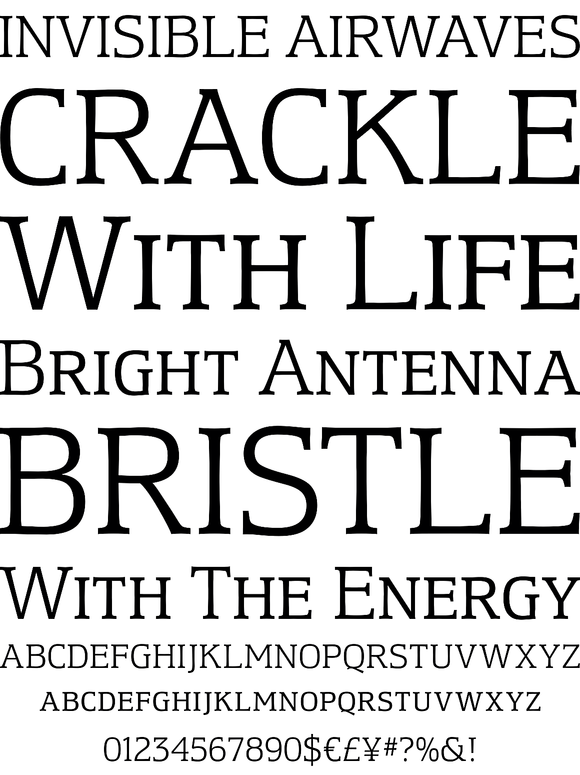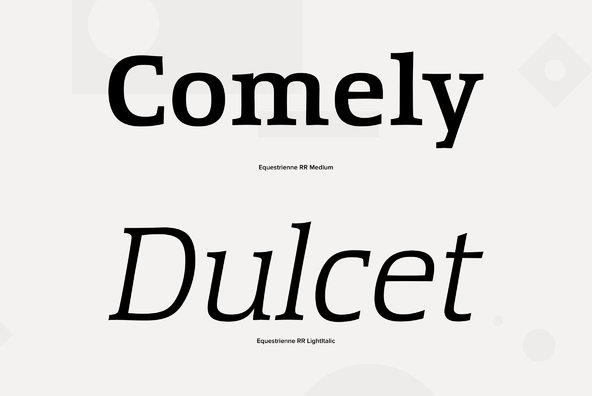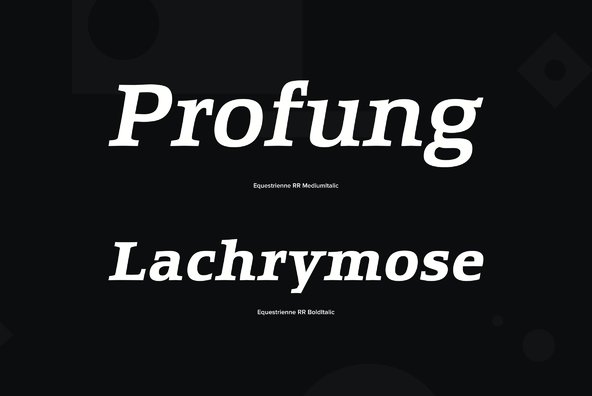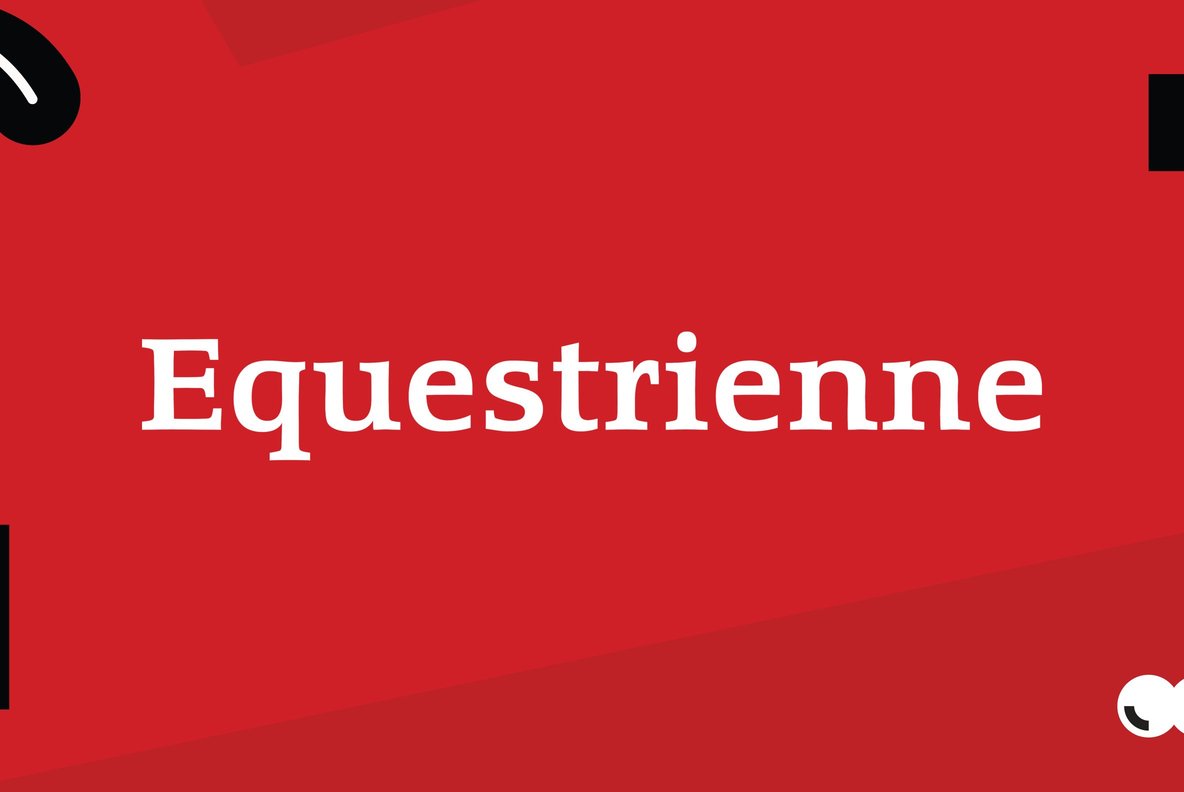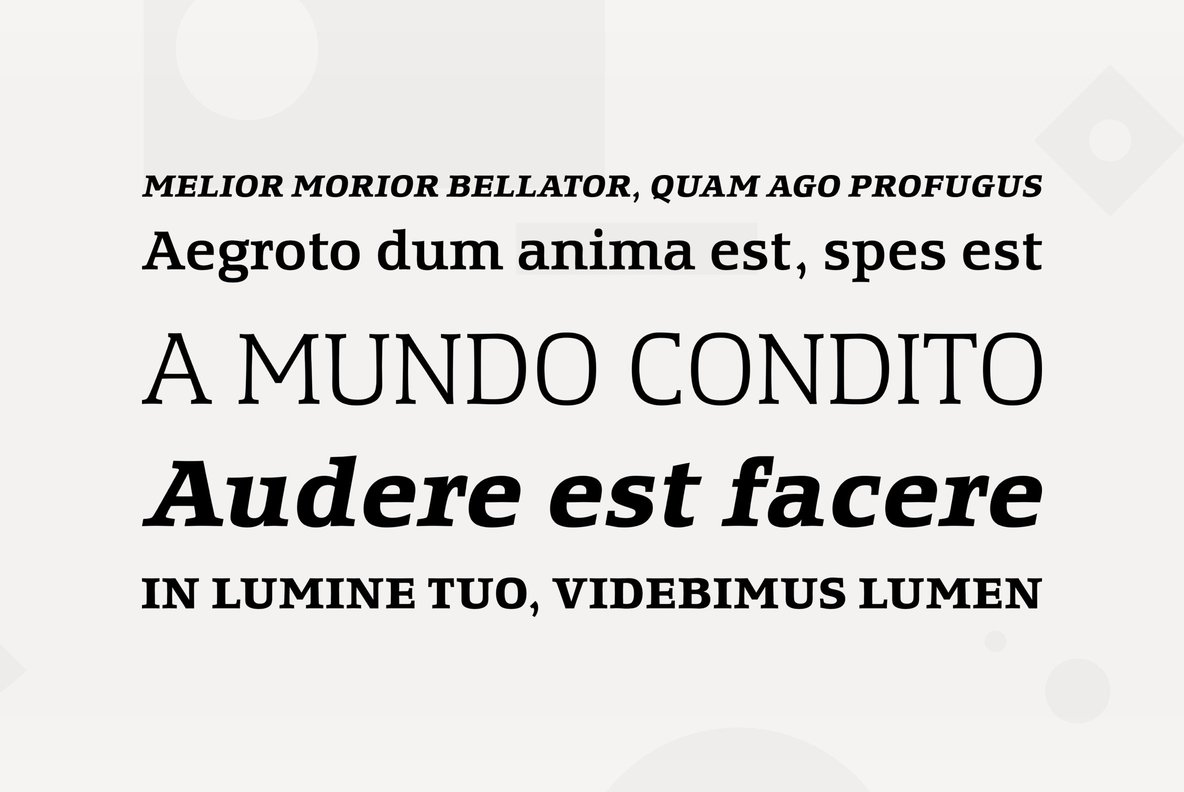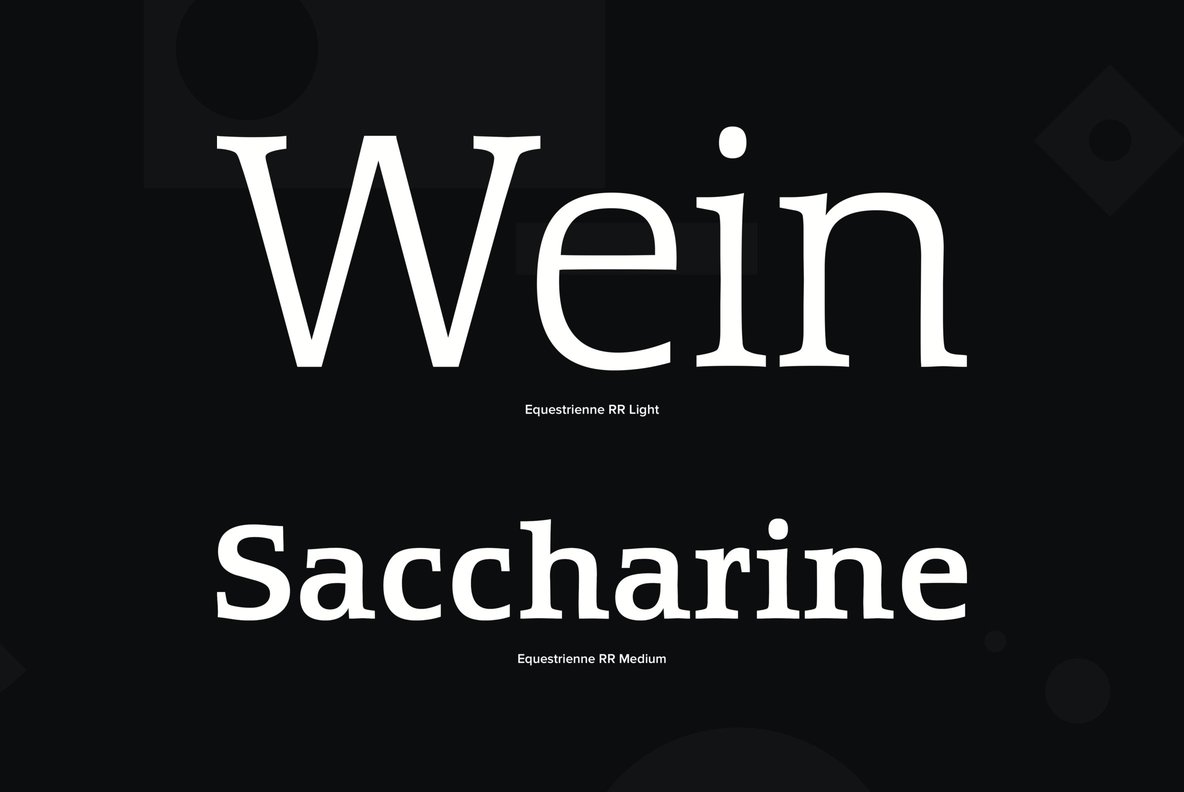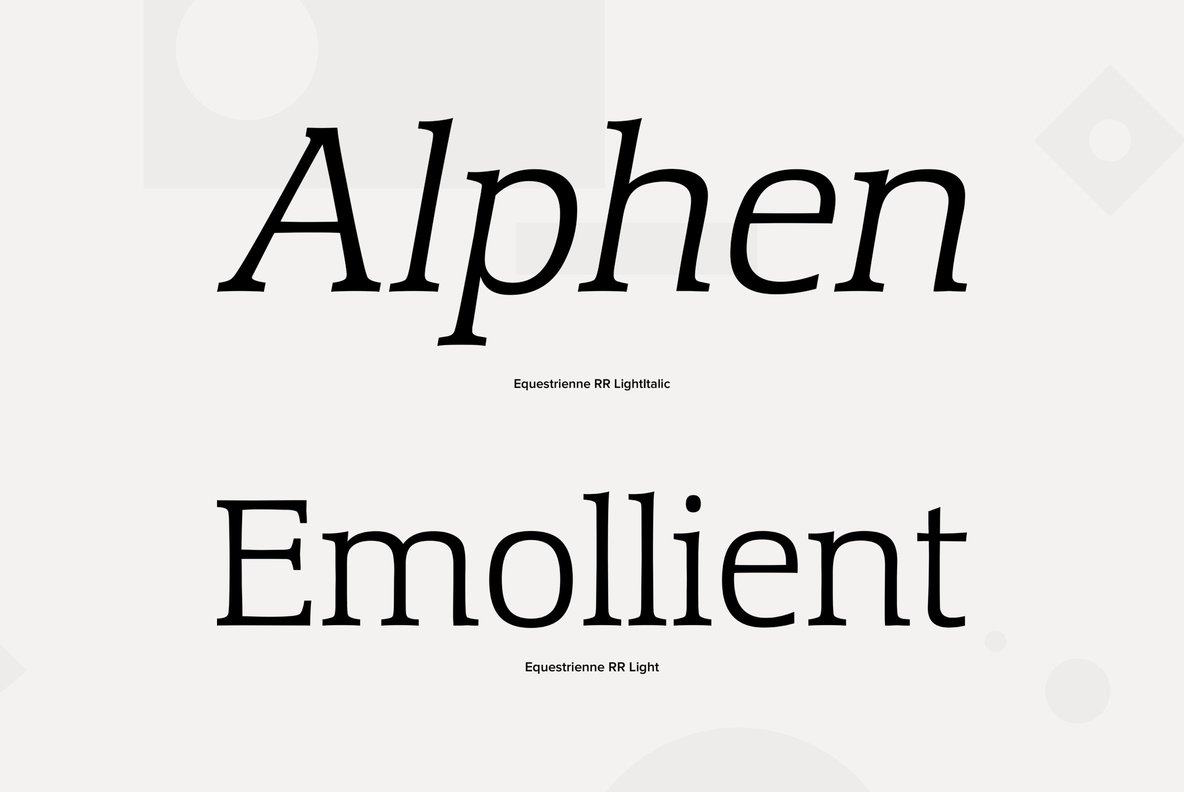
Equestrienne
Designed by Les Usherwood and digitally engineered by Paul Hickson. Les never released this completed typeface before his untimely death in 1983.